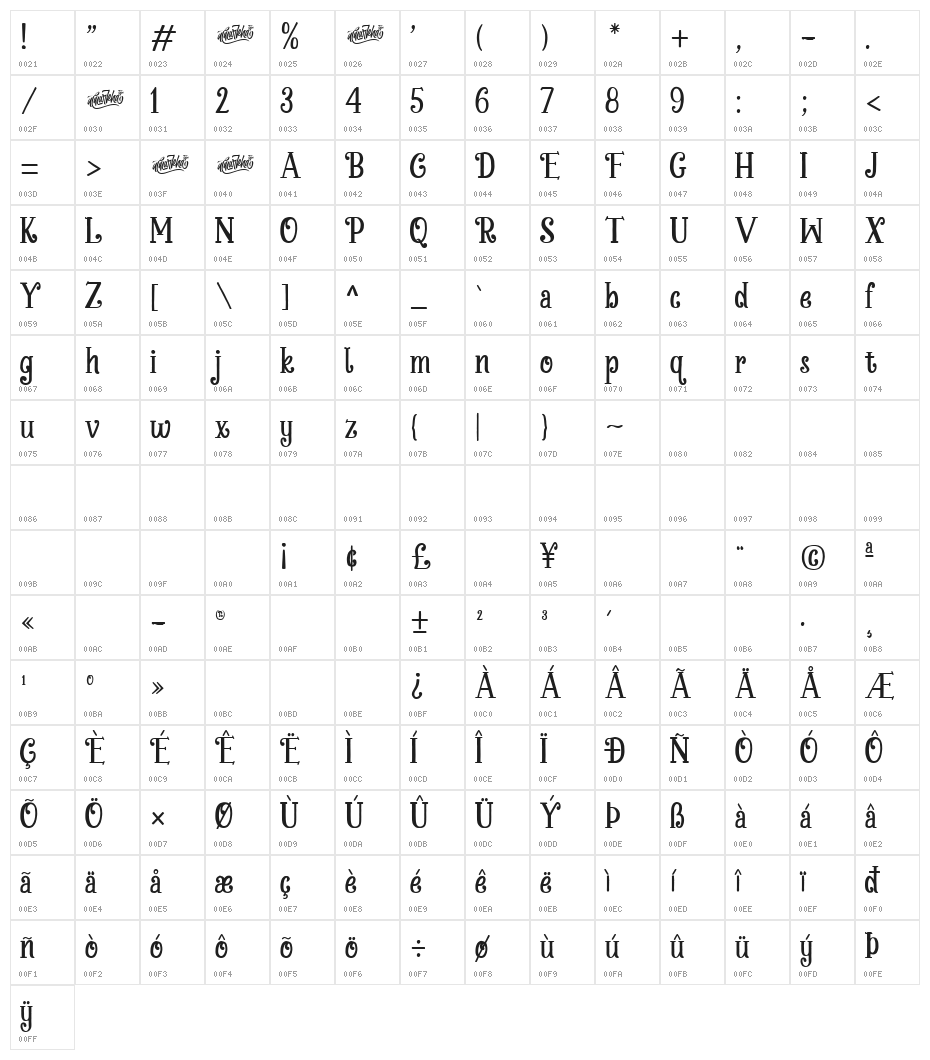
Chickens Lovers Font
Chickens Lovers Description
This font features a playful and whimsical design, characterized by its decorative elements and unique flair. The uppercase letters are bold and slightly condensed, with distinctive curls and loops that add a touch of elegance and fun. The lowercase letters maintain a consistent style, with rounded edges and a slightly taller x-height, enhancing readability while preserving the font's playful nature. The numerals are well-proportioned and align seamlessly with the overall design. Special characters are creatively styled, adding to the font's charm and versatility. This font is perfect for projects that require a touch of personality and creativity.
| Proposed Projects | Ideal for children's books, greeting cards, playful branding, and creative posters. |